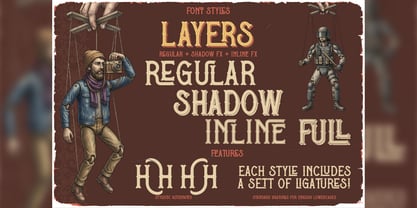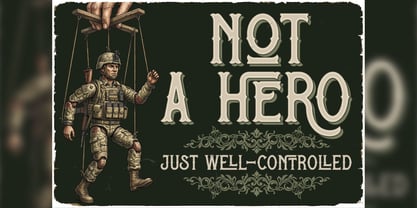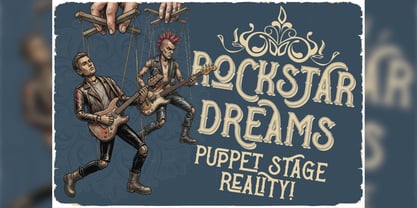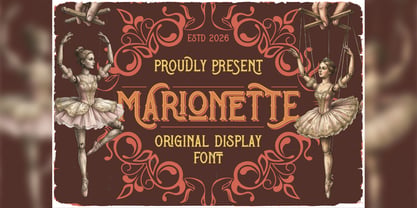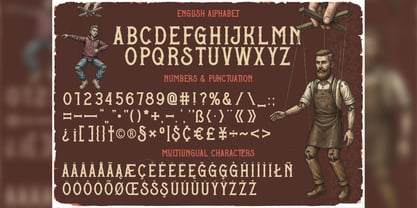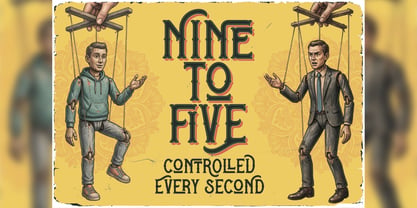
Marionette
by Vozzy
The Marionette Font Family was designed by Oleg Voznyy and published by Vozzy. Marionette contains 6 styles and family package options. More about this family
Introducing "Marionette," a distinctive font designed to elevate your headlines and accent inscriptions, ensuring they capture attention effortlessly. This versatile typeface includes a wide array of additional characters, punctuation marks, and multilingual support, making it perfect for diverse design needs. With an extensive selection of standard ligatures, "Marionette" enhances readability and visual appeal—just ensure your software supports this OpenType feature. Ideal for branding, web design, and editorial projects, this font will add a touch of elegance to your stunning designs!
Designers: Oleg Voznyy
Foundry: Vozzy